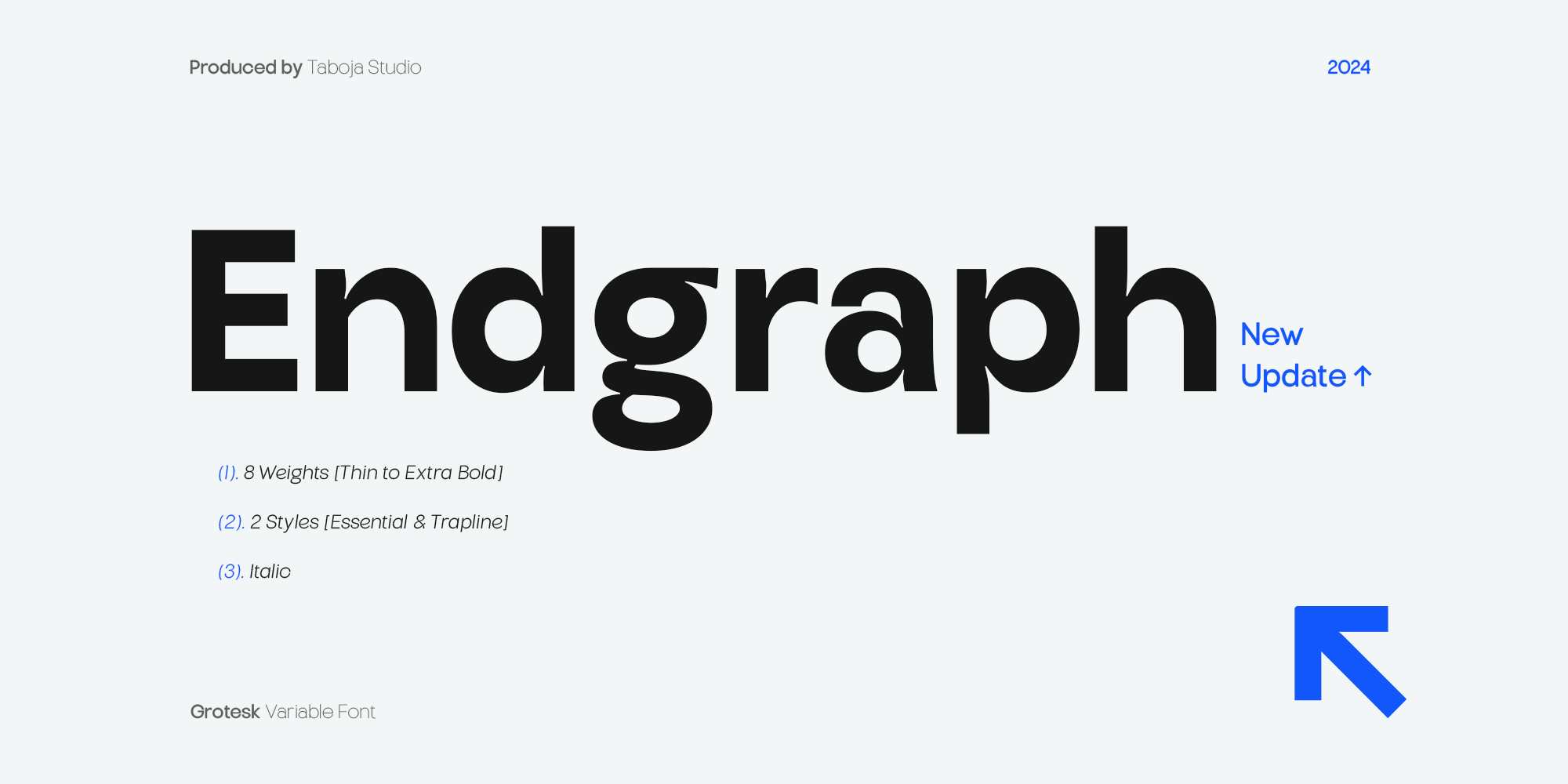
TBJ Endgraph Essential & Trapline Font duo combines two distinctive styles perfect for versatile design needs. Endgraph Essential offers clean, modern sans-serif forms ideal for branding, editorial content, and UI design, while Trapline brings a decorative, urban vibe great for headlines, posters, and creative logos.
What makes TBJ Endgraph Essential & Trapline Font Free Download so exciting is the dynamic contrast between the sleek minimalism of Endgraph and the bold expressiveness of Trapline. This pairing allows designers to create layered and engaging visuals with balance and flair.
The font families include multiple weights and styles—Endgraph Essential spans Light to Bold with italics, while Trapline offers unique decorative styles to make your headlines pop and capture attention.
Whether you’re working on a corporate identity, streetwear branding, or eye-catching promotional materials, TBJ Endgraph Essential & Trapline Font Free Download gives you the flexibility and personality to craft standout designs.